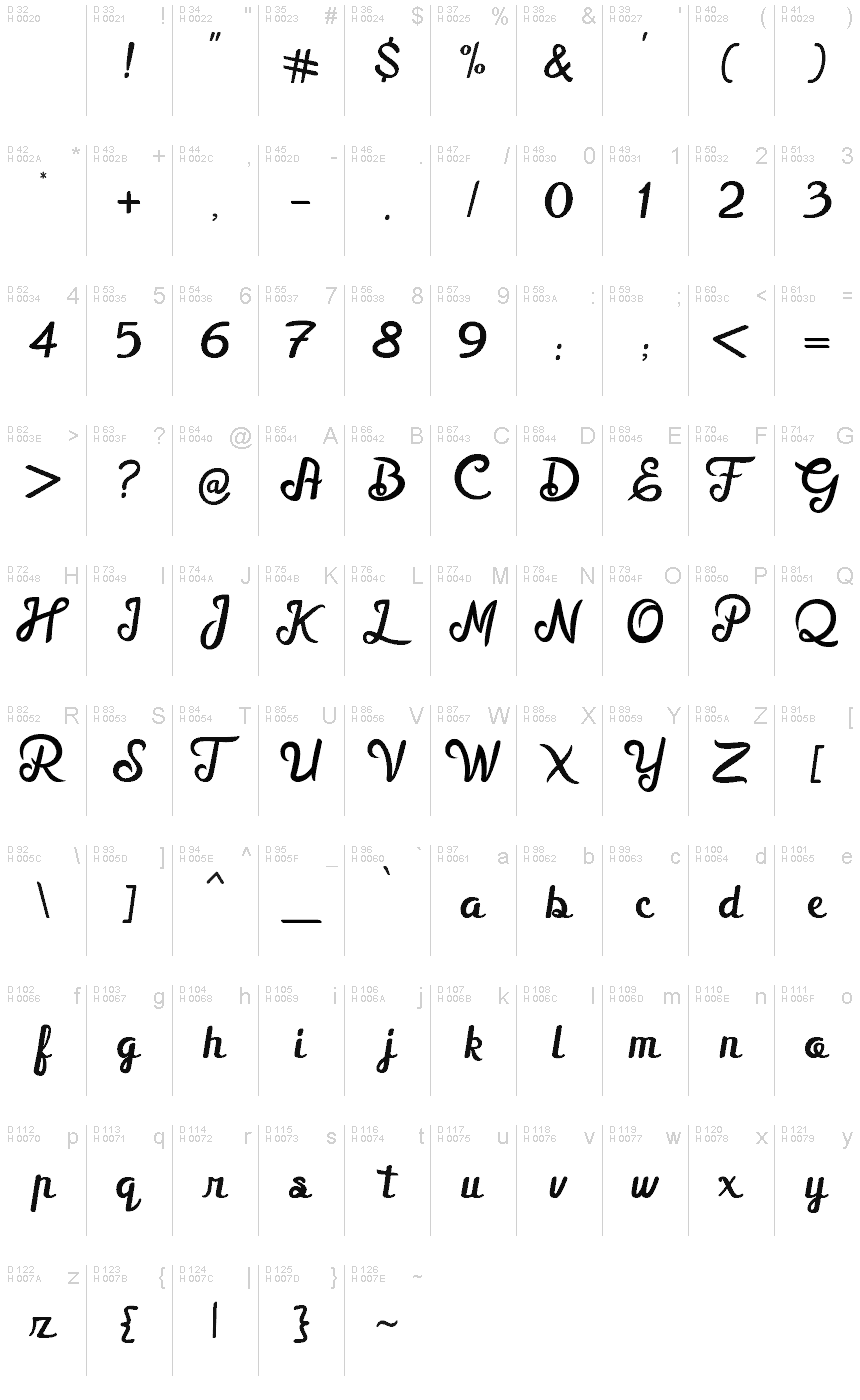
Mellifret
Mellifret, a captivating handwritten font crafted by Java Pep, exudes a delightful and organic charm. Its fluid, cursive strokes and natural variations lend an effortless, artisanal aesthetic, evoking a sense of warmth and authenticity. The font's distinctive personality shines through in its playful, yet refined, character shapes, making it a delightful choice for a variety of design applications.
Mellifret's versatility allows it to seamlessly complement a wide range of design styles, from rustic and artisanal to modern and minimalist. Its expressive qualities make it an ideal selection for branding, packaging, editorial design, and personal projects that seek to convey a handcrafted, inviting atmosphere. Whether incorporated into headlines, subheadings, or decorative elements, Mellifret's unique flair is sure to captivate and engage the audience.